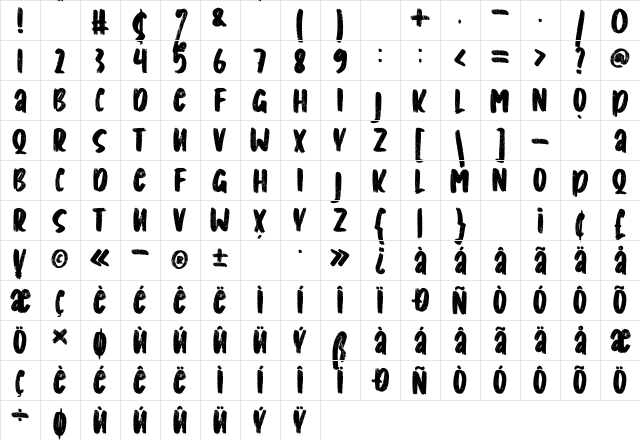
Habare Regular Free Font
Habare Regular
Designer: Skiiller studio - M irfan mahmudin
Design Context for Habare
Habare is a composed and adaptable typeface that performs quietly and consistently across a wide range of design contexts.